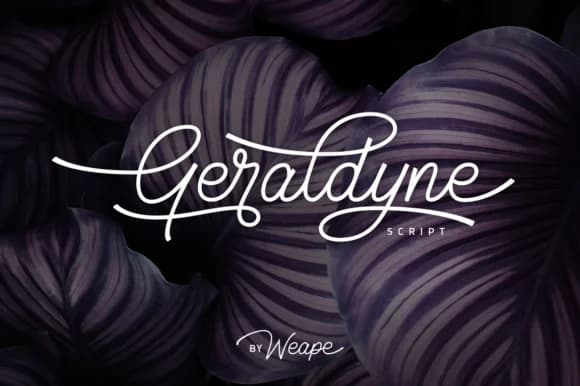
Geraldyne by Weape Design is a monoline script that brings sophisticated, hand-drawn elegance to contemporary creative work. The clean, flowing letterforms of this calligraphy-inspired typeface function effectively as a visual anchor, commanding attention while maintaining strong readability across sizes and mediums.
This font truly shines in projects where refinement and authenticity matter equally. Designers frequently choose Geraldyne for wedding invitation suites seeking elegance without excessive formality, personalized greeting card designs that feel genuinely handwritten rather than digital, artisan product packaging that conveys quality and craft, and branding systems for boutique businesses where handcrafted appeal strengthens visual identity. The consistent monoline structure ensures the design works beautifully whether displayed at large headline scale or reduced for intricate detailing work.
Geraldyne's even stroke weight and thoughtful proportions create genuine versatility across digital and print applications. Whether developing a single design piece or building a complete brand identity system, this font delivers the refined character that separates intentional creative work from generic design solutions. The script balances distinctive personality with professional restraint, making it equally effective for upscale product packaging or personal creative projects. Get Geraldyne on Creative Fabrica and bring this elegant script into your design collection.
Geraldyne Font is a script font that shines as a display or heading face. Pair it with a clean sans-serif or serif font for body text β the contrast creates a clear hierarchy while the two styles stay balanced and easy to read.
Geraldyne Font